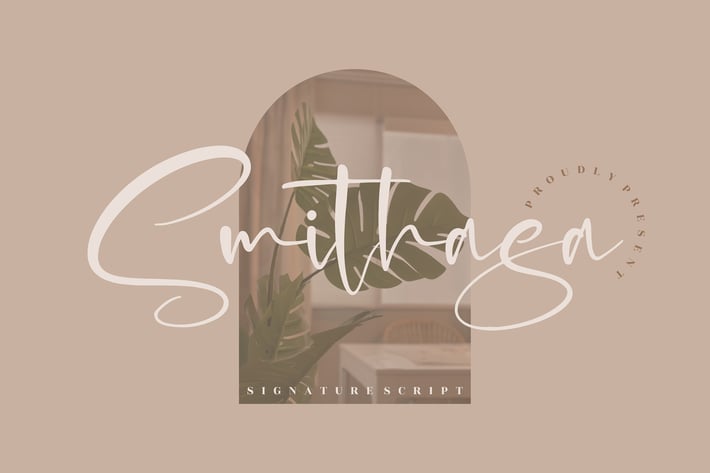
Smithasa Signature Script Font
Smithasa is a modern signature script font that embodies effortless elegance and natural flow. Designed to capture the beauty of handwritten sophistication, it’s perfect for personal branding, lifestyle projects, and anything that calls for a graceful touch. Its smooth, flowing lines make your designs feel organic, modern, and irresistibly stylish.
Elegant handwritten signature style
Complete uppercase, lowercase, numerals, and punctuation
Smooth curves with a natural, fluid look
Personal branding and fashion logos
Photography watermarks
Editorial layouts and social media posts
Wedding invitations and event stationery
* Beauty and lifestyle packaging
Where elegance meets authenticity — Smithasa turns every word into a graceful signature.